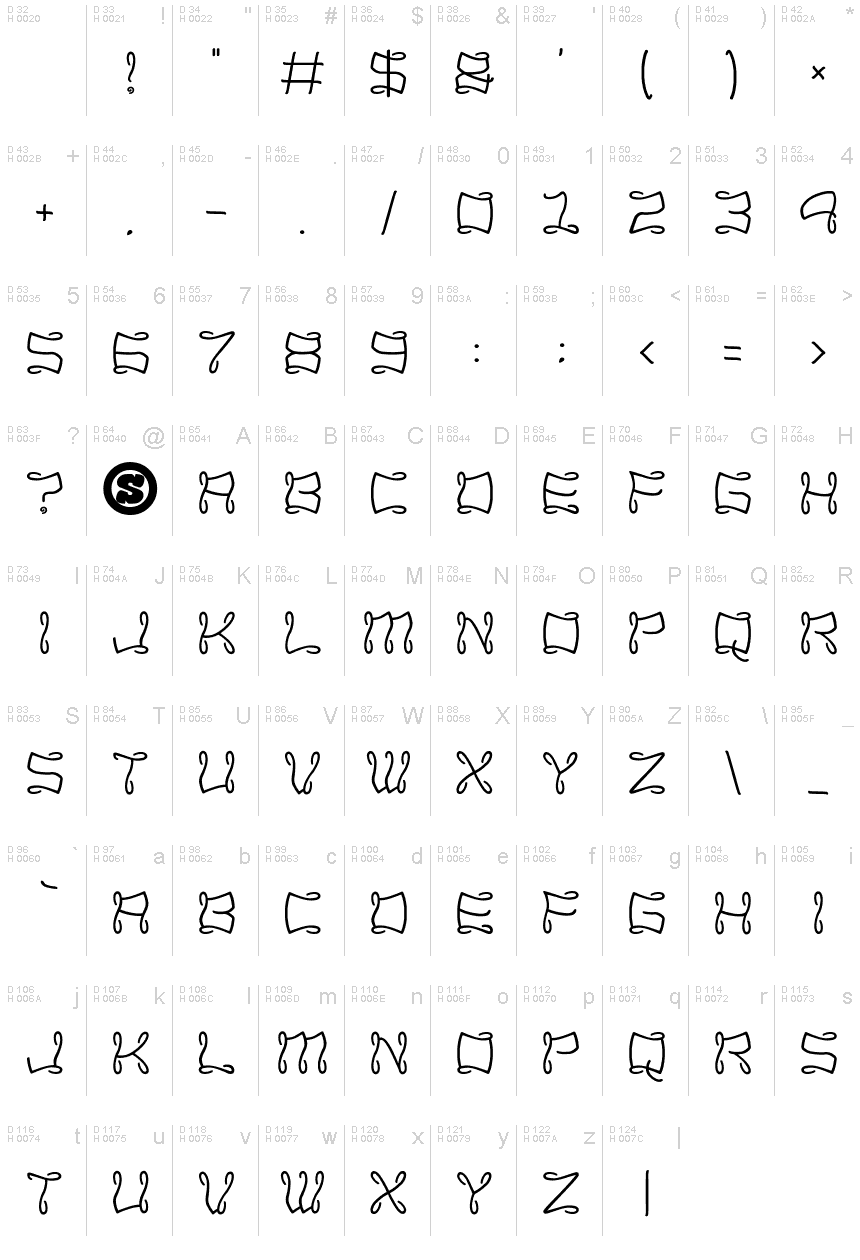
Gandhara
Gandhara, a display font crafted by the talented Goma Shin, brings an elegant and whimsical touch to any project. Its curly style adds a playful personality while the light weight maintains readability. With its semi-expanded width, Gandhara is perfect for headlines, posters, and branding materials that require a touch of sophistication. Whether you're creating wedding invitations or designing packaging for luxury products, Gandhara will elevate your work and make it stand out. Let this versatile typeface bring your creative vision to life.